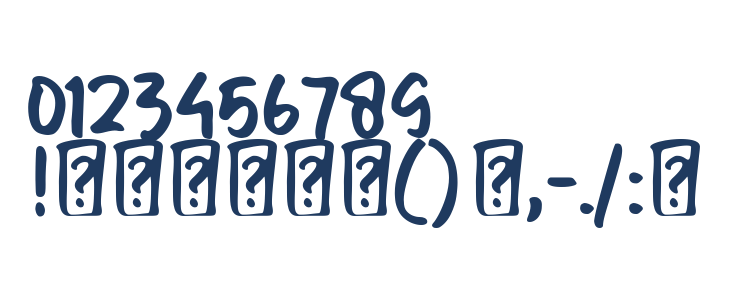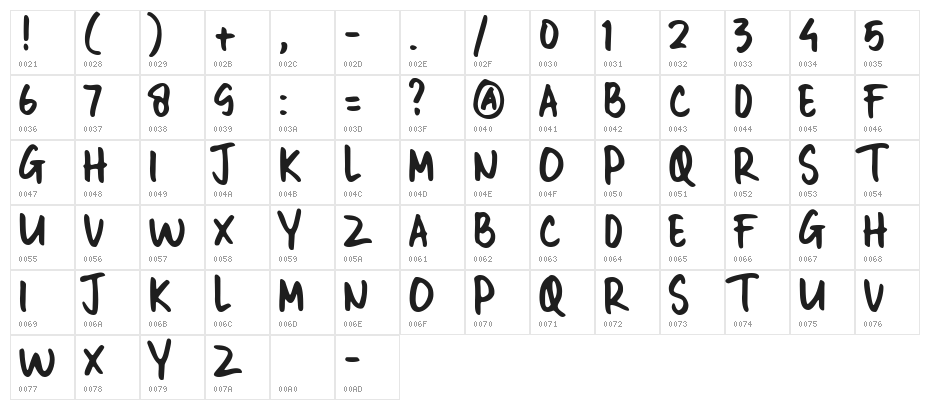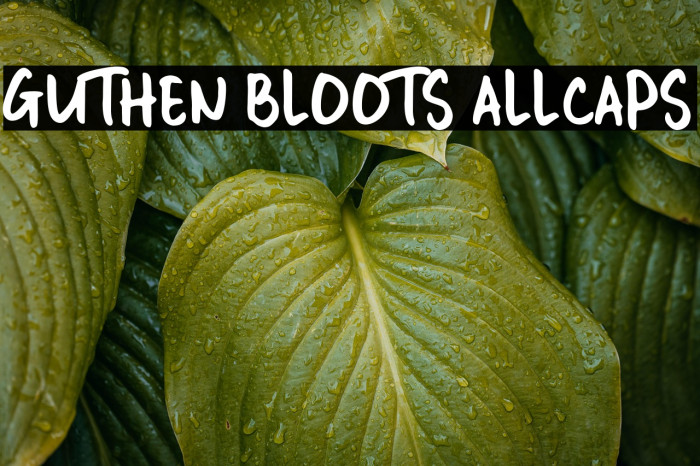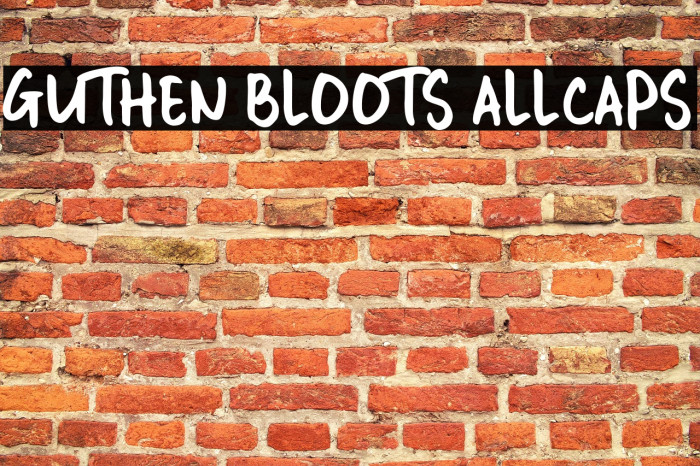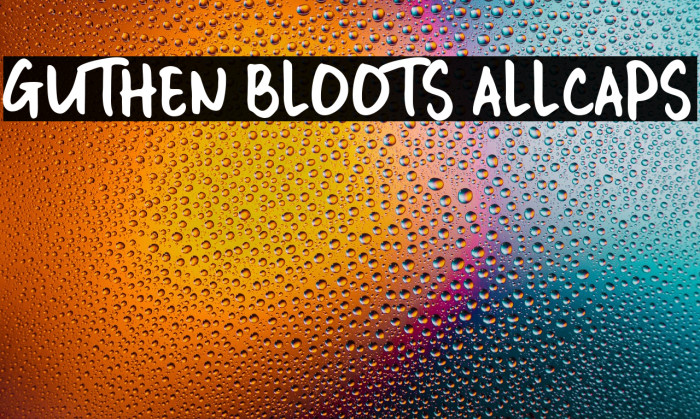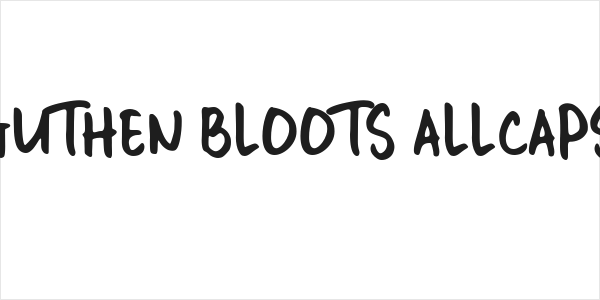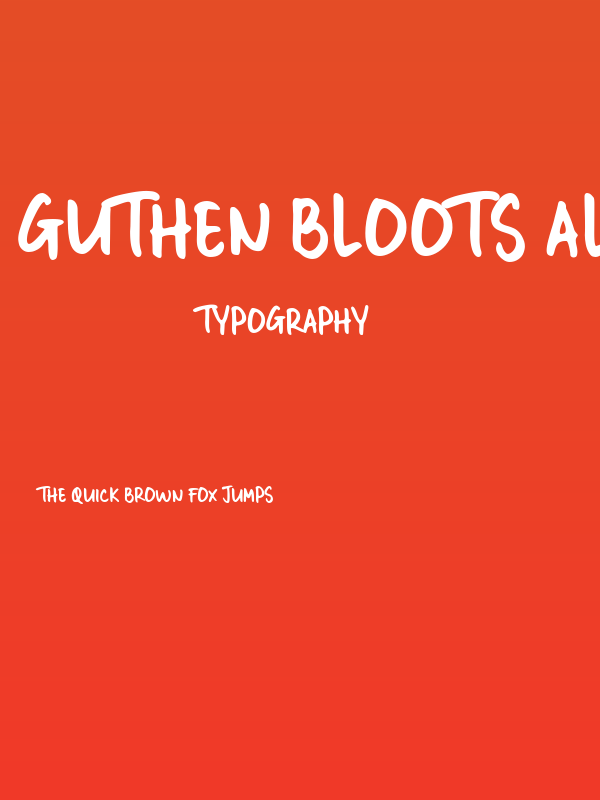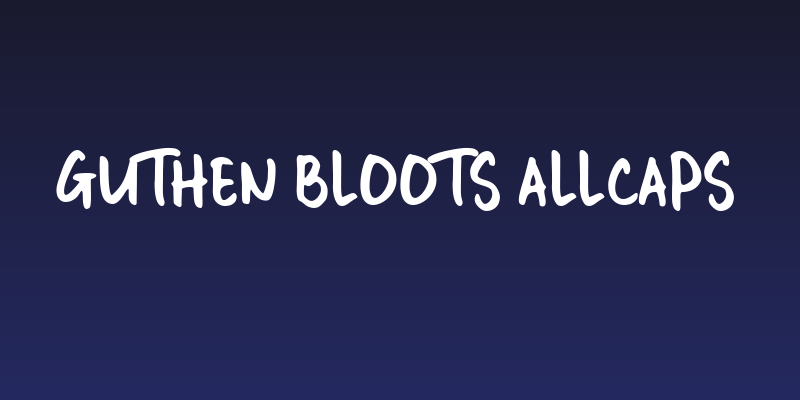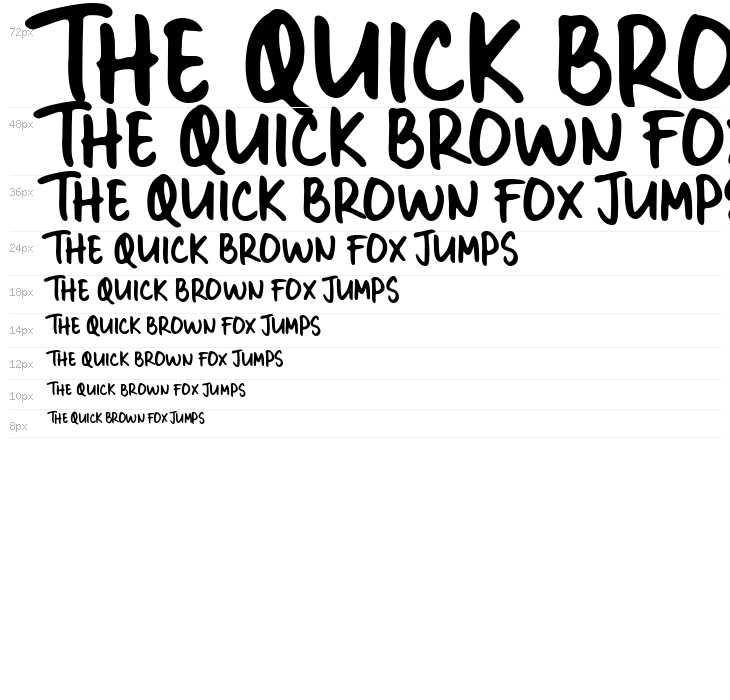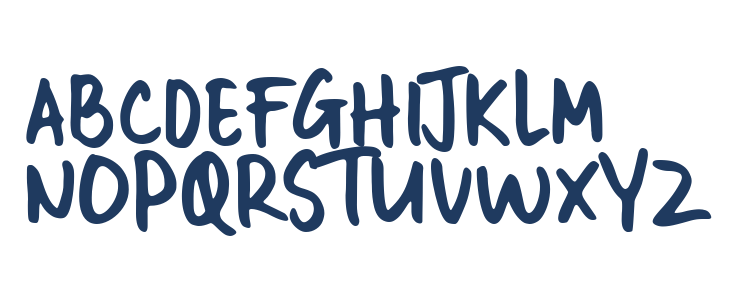
GUTHEN BLOOTS ALLCAPS Font
GUTHEN BLOOTS ALLCAPS Description
This font features a bold and playful handwritten style, characterized by its thick strokes and casual, informal appearance. The letters are slightly slanted, giving a dynamic and energetic feel. The uppercase and lowercase letters maintain a consistent style, with rounded edges and a smooth flow. Numbers and special characters are equally bold, maintaining the playful aesthetic. The overall design is approachable and friendly, making it suitable for projects that require a personal touch or a sense of fun.
| Overall Style | Playful, Casual |
| Proposed Projects | Ideal for children's books, playful branding, greeting cards, and social media graphics. |